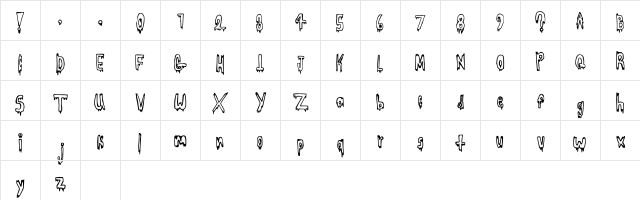
Icicle Chill Regular
Design Context for Icicle Chill
Icicle Chill is a composed and adaptable typeface that performs quietly and consistently across a wide range of design contexts.